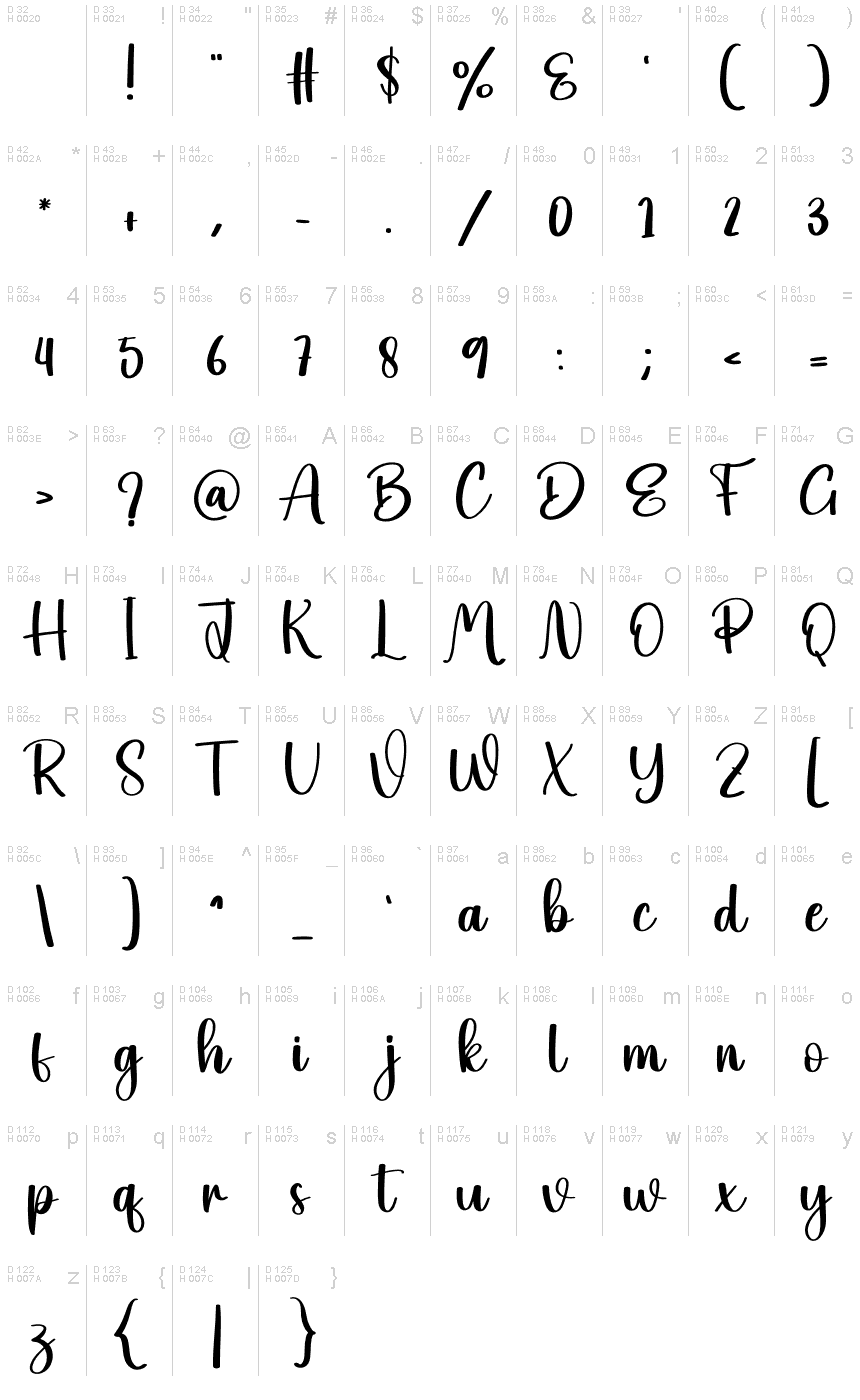
Analytic
Experience the charm of Analytic, a handwritten font crafted by Scratchones, designed to breathe personality into your creative endeavors. This latest style of lettering is not just a font; it's an avenue to infuse your projects with individuality and sophistication. Analytic's fluidity and distinctive character make it an impeccable choice for an array of artistic applications — from captivating wall displays to elegant wedding invitations.
Ideal for designers looking to add a touch of bespoke elegance, Analytic excels in social media post logos, advertisements, and product packaging. Its versatility extends to product designs, labels, photography overlays, watermarks, and stationery. Embrace the exceptional experience that Analytic offers and watch as it transforms your work with its exquisite taste in handwriting style.